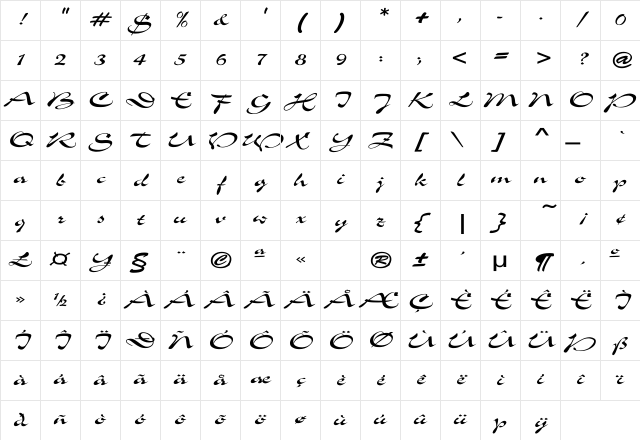
Slogan-Normal Wd Regular
Design Context for Slogan-Normal Wd
Slogan-Normal Wd is a composed and adaptable typeface that performs quietly and consistently across a wide range of design contexts.